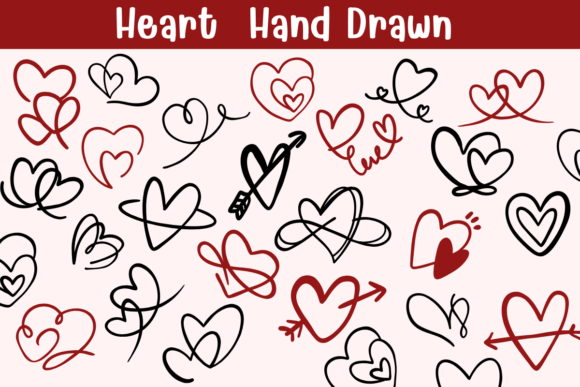
Bring a Little Love to Your Designs
Who hasn’t found themselves scribbling a heart on a napkin or a post-it note at some point in their life? The simple act of drawing a heart can be a universal expression of love and affection. As designers, we often look for ways to add a personal touch to our projects, and that’s exactly where the Heart Hand Drawn Font comes in.
This delightful collection of hand-drawn heart doodles is a treasure trove of unique and expressive designs that can instantly elevate your projects. Whether you’re working on a Valentine’s Day campaign, a wedding invitation, or a social media graphic, the Heart Hand Drawn Font is sure to bring a burst of genuine, heartfelt emotion to your designs.
For designers, the value of this font lies in its versatility and organic, sketch-like quality. It’s perfect for adding a playful, romantic, or cute touch to any project, making it a must-have for any creative looking to add a little love to their designs.
Heart Hand Drawn Font Key Features
- Unique Characteristics: Hand-drawn design, cursive and script style, with a personal and emotive feel
Heart Hand Drawn Font Review
Overall, I’m quite impressed with the “Heart Hand Drawn Font”! ✨ It’s perfect for creating a warm and personal feel in your designs. The font has a beautiful, hand-drawn quality that’s reminiscent of a love letter or a handwritten card.
Here are some things that I think work well:
- Unique and quirky style: The font has a distinctive, hand-drawn feel that sets it apart from more traditional fonts.
- Expressive and emotive: The font is perfect for conveying a sense of love, affection, or romance.
- Works well in a variety of contexts: Whether you’re designing a wedding invitation, a birthday card, or a social media post, this font is sure to add a touch of personality.
- Not ideal for body text: The font is best used for headings or titles, as the handwritten style can be difficult to read in large blocks of text.
- May not be suitable for formal or professional designs: The font’s playful, hand-drawn style may not be suitable for formal or professional contexts.
Overall, I think the “Heart Hand Drawn Font” is a great choice for designers who want to add a touch of personality and whimsy to their designs. While it may not be suitable for every project, it’s a great option for creating a warm and inviting feel.
The Heart Hand Drawn Font is perfect for:
Children’s birthday party invitations and decorations
Valentine’s Day and love-themed designs
Handmade or DIY projects
Combine the Heart Hand Drawn Font with other handwritten fonts for a unique look.
Use it for titles and headings to add a touch of whimsy.
Experiment with different font sizes and colors to